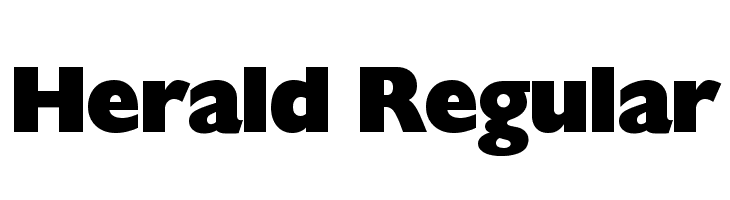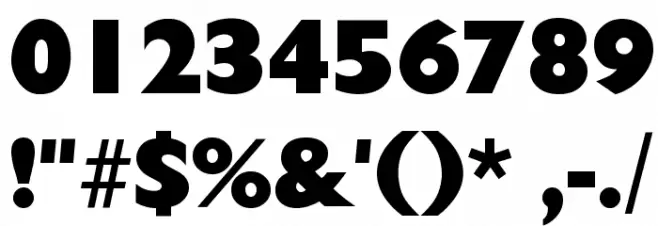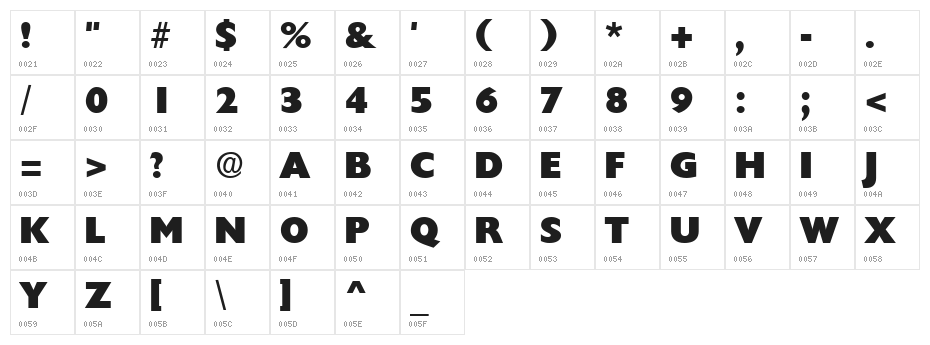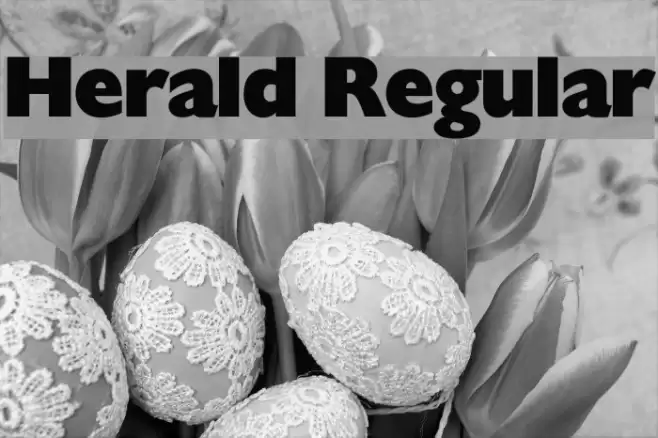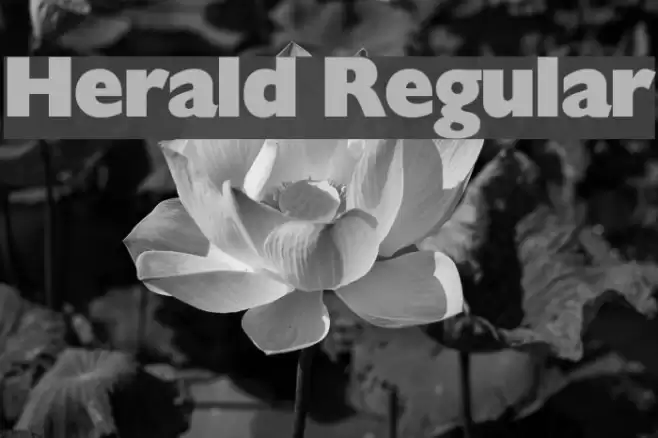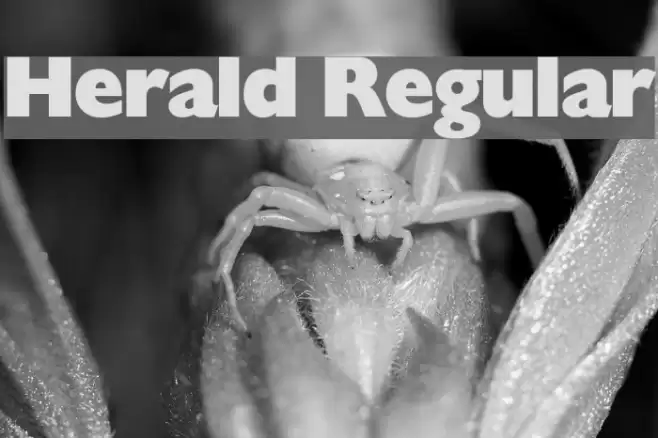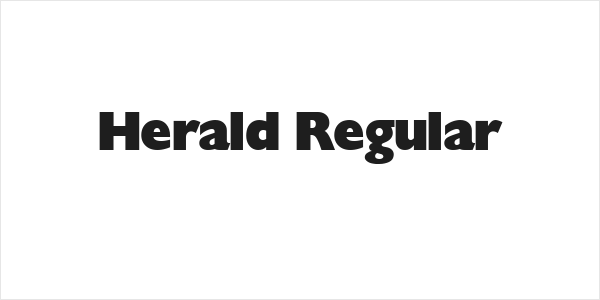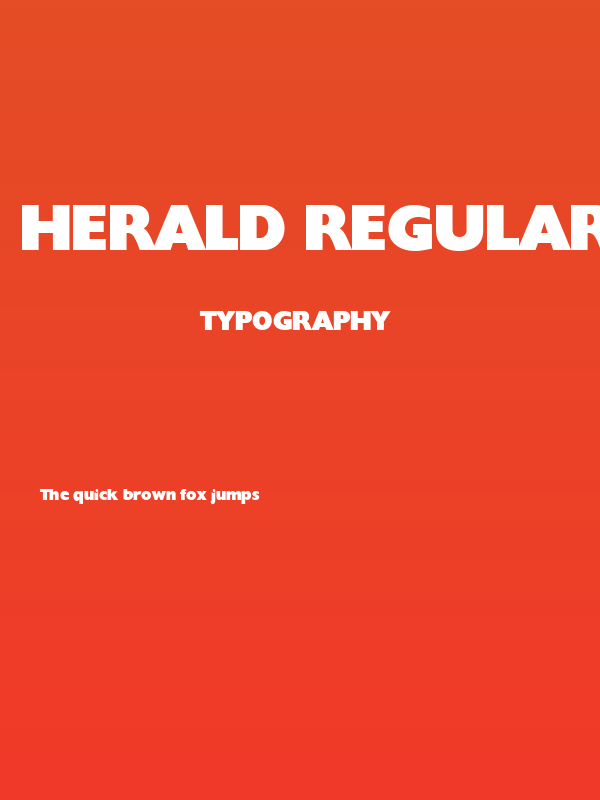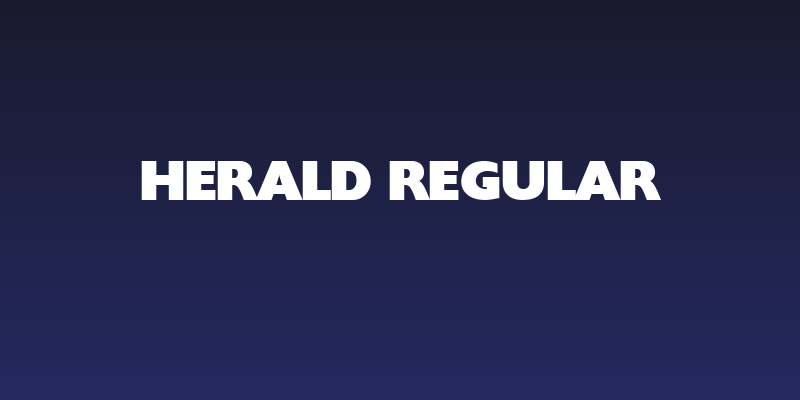
Herald Regular Font
Herald Regular Description
This font features bold, geometric letterforms with a strong presence, making it ideal for impactful designs. The uppercase letters are particularly striking, with a uniform stroke width that conveys a sense of stability and modernity. The lowercase letters maintain the same boldness, ensuring consistency across text. The numerals are clear and easily readable, matching the overall robust style. Special characters are well-integrated, offering versatility for various design needs. The font's design is clean and straightforward, emphasizing clarity and strength.